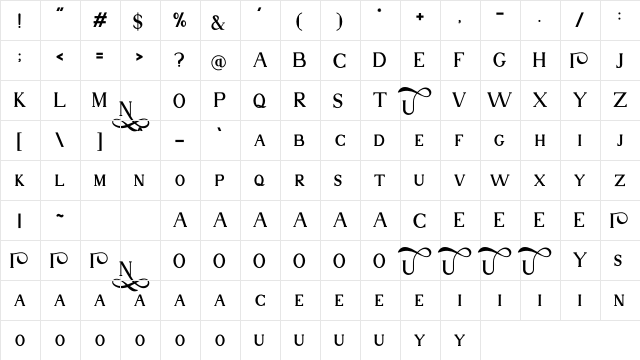
Nuri Free Regular Font Preview
Nuri Free Regular
| Foundry | Putracetol Studio |
| Designer | Putra Novembria Candra Kusuma |
Design Context for Nuri Free Typeface
Nuri Free takes a measured approach to typography — its balanced proportions and neutral character make it a reliable workhorse for both digital and print work.